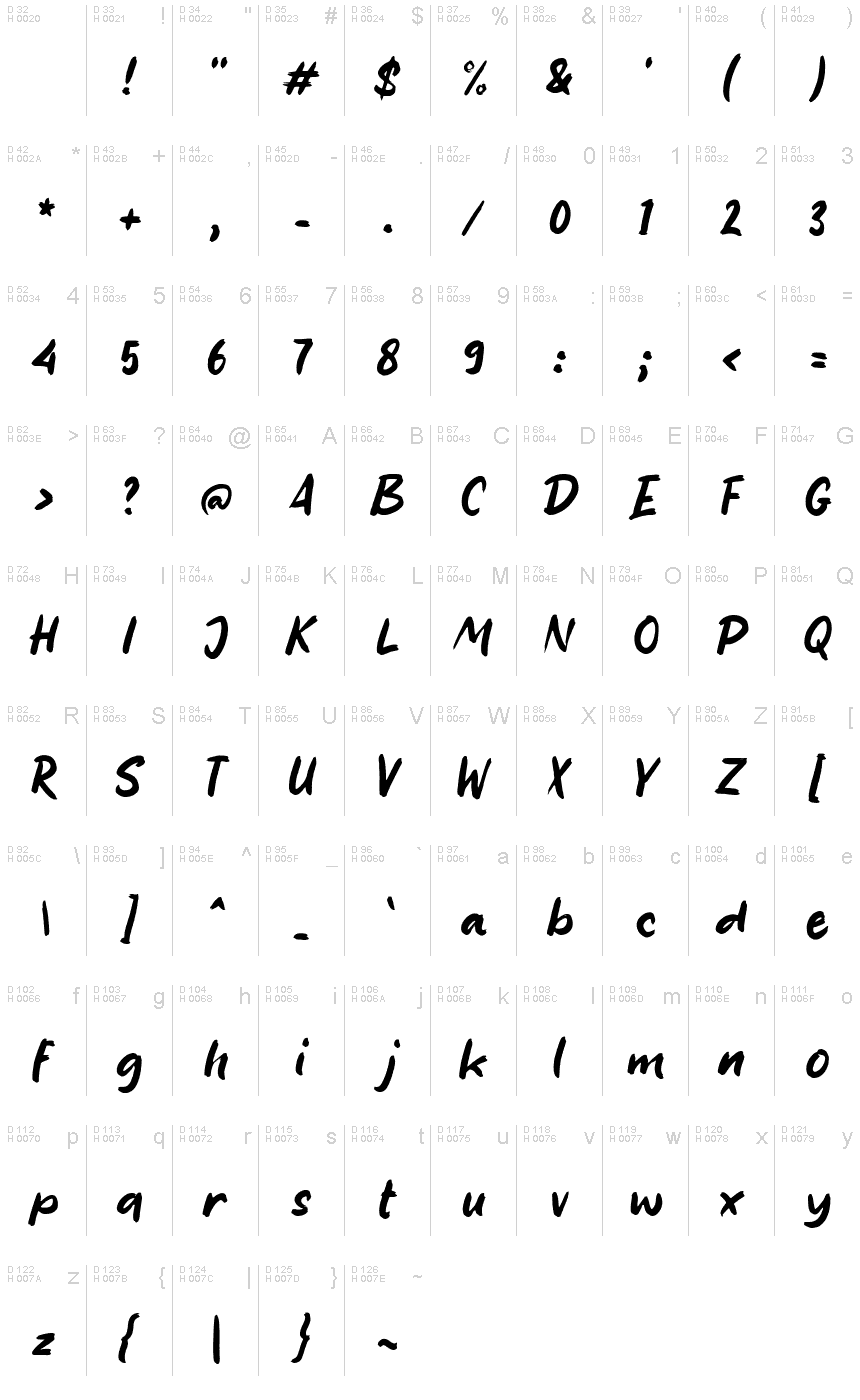
FIREBRAND
Firebrand, designed by wep, is a semi-bold brush font with a rebellious streak. Its hand-painted strokes exude energy and raw creativity, perfect for projects that call for an edgy touch. From eye-catching branding to artistic posters, Firebrand injects personality into any design. This versatile font bridges the gap between street art and refined aesthetics, making it ideal for both commercial and personal endeavors that demand attention.
Embrace the boldness of Firebrand and let your words ignite passion in every curve and line.